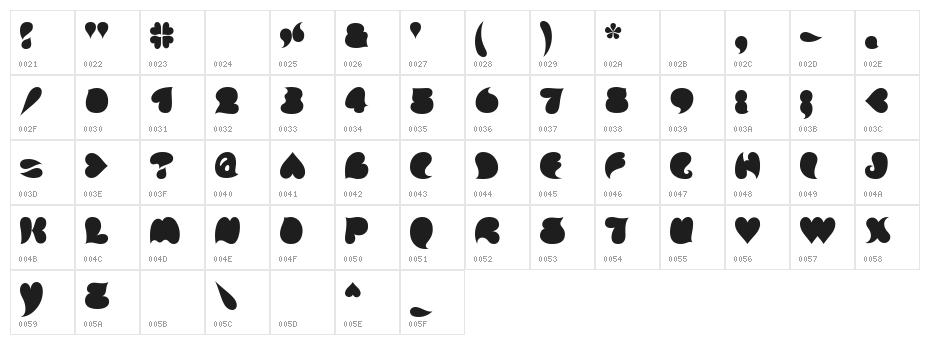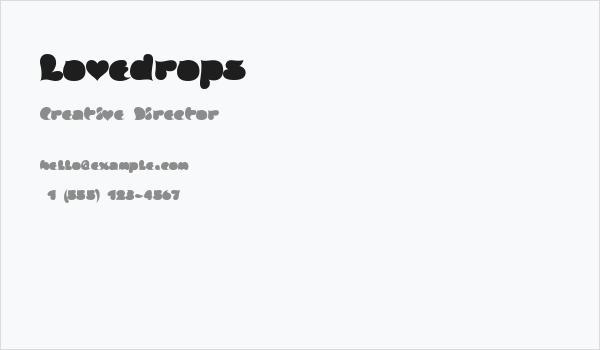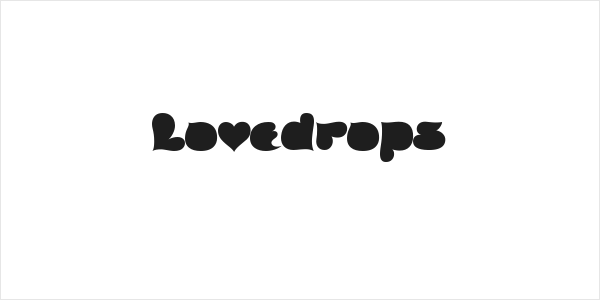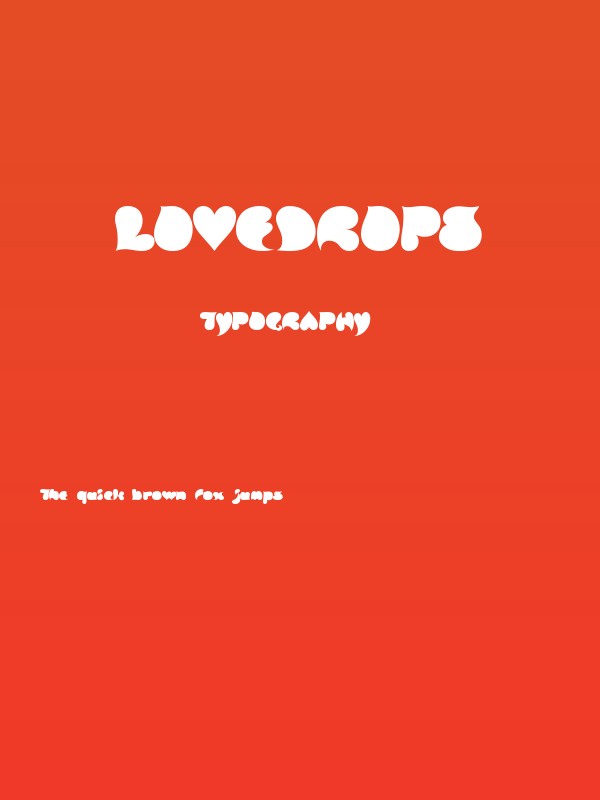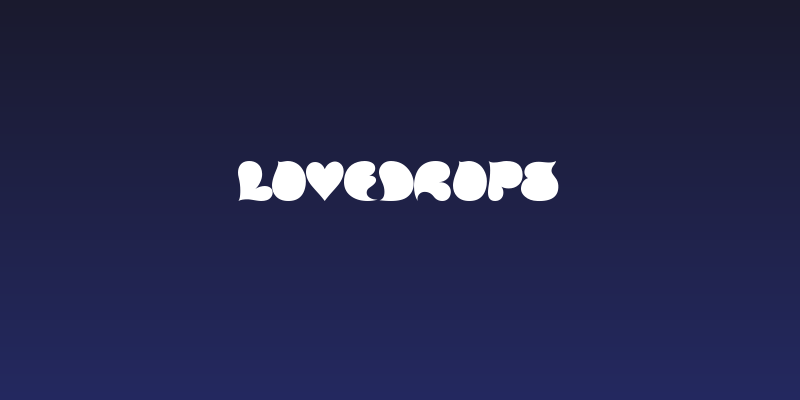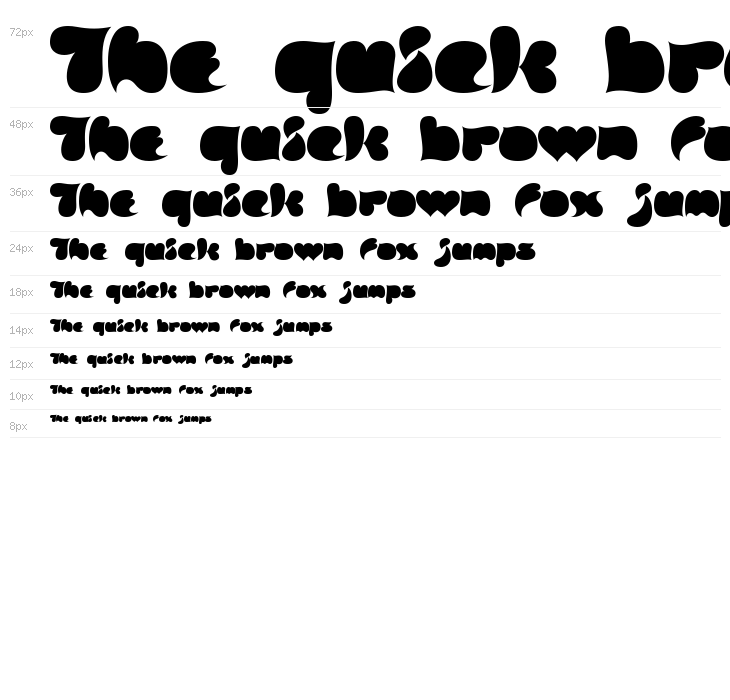
Lovedrops Font
Lovedrops Description
This playful and bold font features a unique, rounded design with heart-shaped elements integrated into the characters, giving it a whimsical and romantic feel. The letters are thick and have a consistent weight throughout, creating a strong visual impact. The curves are smooth and exaggerated, contributing to its decorative style. The font maintains a uniform width, making it suitable for eye-catching headlines and creative projects. Its distinctive style is both modern and fun, perfect for conveying warmth and affection in design.
| Overall Style | Playful, Romantic |
| Proposed Projects | Ideal for greeting cards, wedding invitations, playful branding, and children's book covers. |